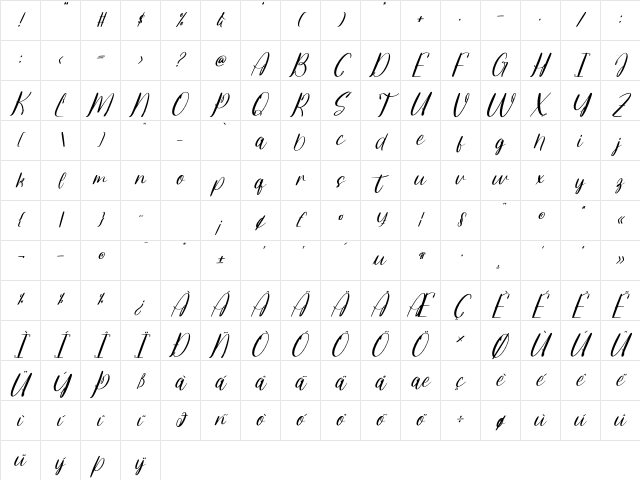
Joclin Ailanet Italic DEMO VERS Italic
Foundry: Letterena Studios
Designer: Heru Utama Putra
Design Context for Joclin Ailanet Italic DEMO VERS
Joclin Ailanet Italic DEMO VERS is a composed and adaptable typeface that performs quietly and consistently across a wide range of design contexts. The slanted form adds forward momentum and visual energy.
Pro Tip: Use Joclin Ailanet Italic DEMO VERS for emphasis, pull quotes, and subheadings where its slanted energy can add rhythm to the layout.